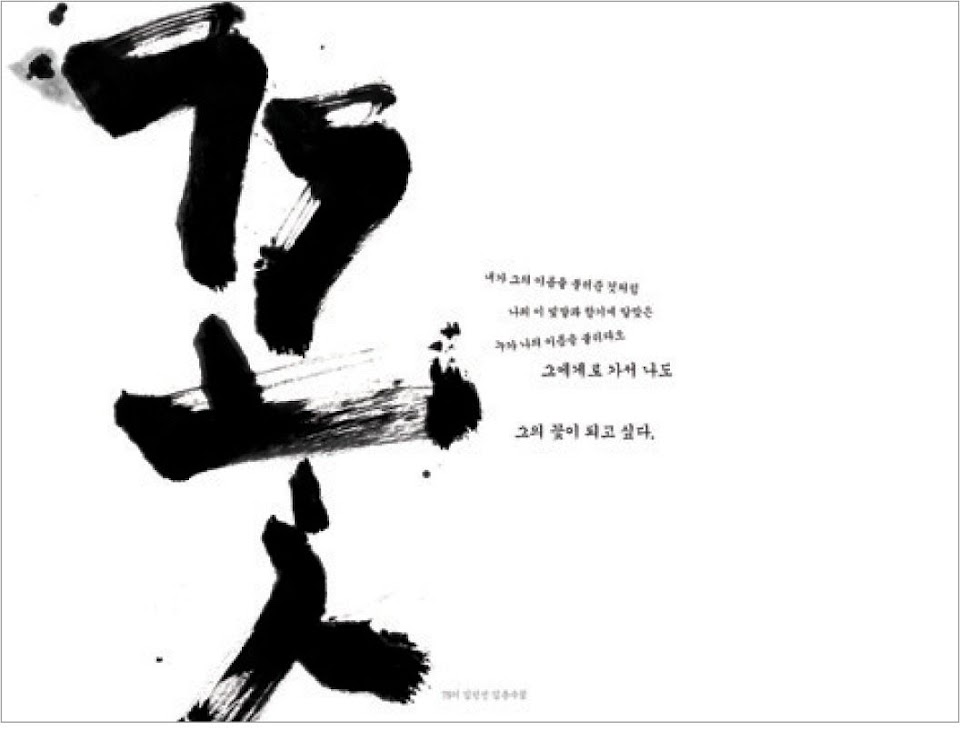
Sil ofl (free for commercial use) 1 font file download. Available for free in personal and commercial site. It’s a handwriting style font written with marker pen.
More hd background could be used personal and commercial free download,please visit pikbest.com Hangul is suitable for posters, headlines, logos, branding and other creative projects. I believe many of the fonts on the naver software list are free for personal use only, but you’d need a license for commercial use.
Font categories most popular newest 3d aggressive all caps ancient arab asian black block blood bold brand brandname brush bubbly calligraphy cartoon christmas classic comic condensed cool curly cursive curvy cute dark decorative dingbats dingfonts distressed dot matrix dripping drug elegant famous fancy fast festive flaming. Woowa brothers has created the ‘hanna’ font for everyone to use. (south) korean waves that happened recently had influenced the.
This font is initially derived from korean latex fonts […] myeongjo. Bm hanna by woowa brothers corporation. Handwritten, script | free for commercial use.
Lottemart happiness font is the official corporate font that you can download for free. Permission free for personal and commercial use […] Doujinshi and various printed materials are also acceptable.japanese fonts have been released….
Pikbest have found 1034 great korean font background psd for website,desktop and advertisement design. Drfont daraehand is a free korean font that you can use for commercial projects. However, now there are some really great options over at google fonts as well:
Hangul is a geometric sans inspired by korean writing system. Display | free for commercial use, ofl. Click to find the best 16 free fonts in the korean style.
Permission free for personal and commercial […] gothic. Are you looking for korean font background images? Typo crayon is a really nice display font where it has the rough texture of the crayon strokes.
Commercial use is permitted for online and offline. Making the web more beautiful, fast, and open through great typography 210 byulddongbyul is a cute, squarish free korean font that is free to download.
Byulddongbyul means “meteor” in korean, so some characters have trailing stars in it, which is a […] display. Using this font as part of your corporate identity is prohibited. Non latin [+], playful [+], cjk [+], rounded [+], commercial use [+], korean.